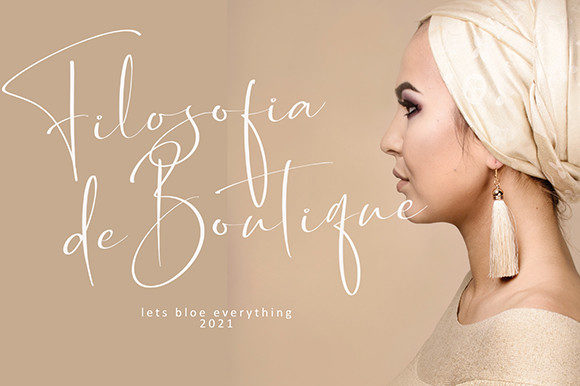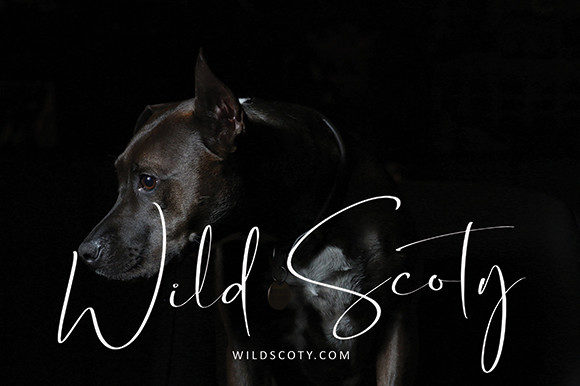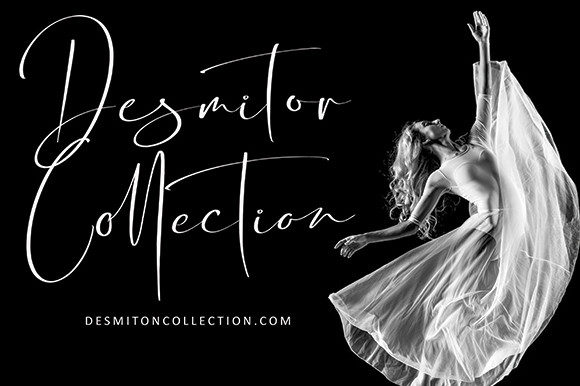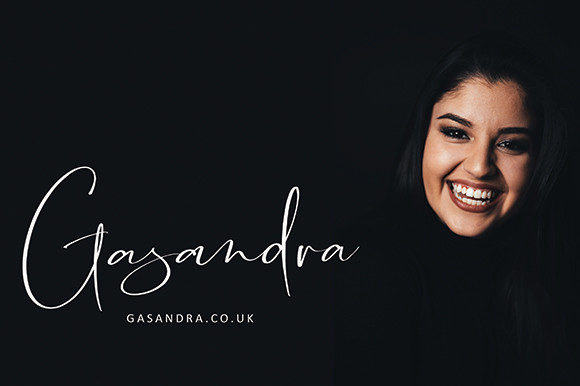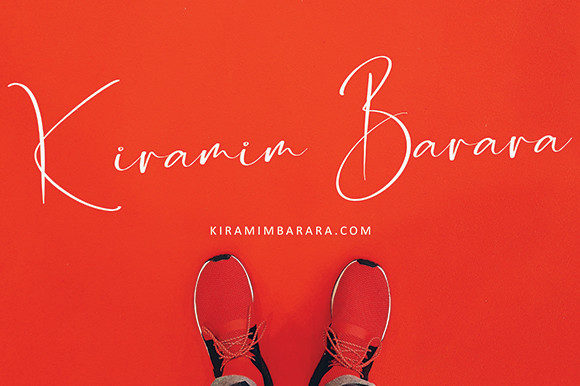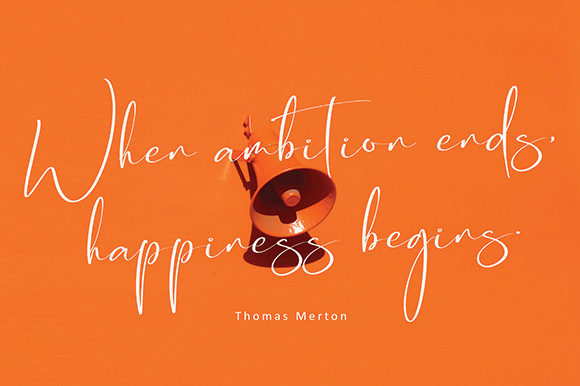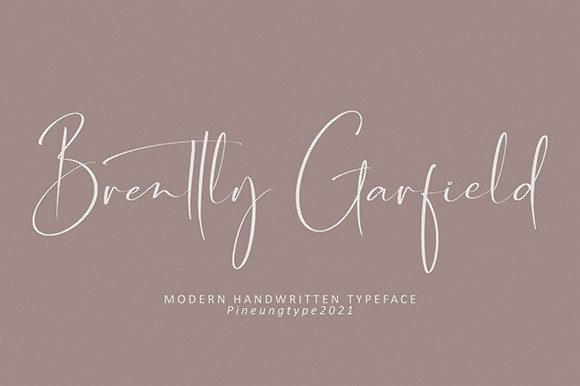
Discover the Elegance of Brently Garfield Font: Elevate Your Designs with Sophistication
Are you on the lookout for a font that exudes elegance, refinement, and a touch of modern sophistication? Look no further than the Brently Garfield Font. This beautiful script font is designed to add a classy touch to a wide range of design projects, from logos and branding to invitations, stationery, wedding designs, social media posts, and beyond. In this article, we’ll dive into the world of Brently Garfield Font, exploring its features, uses, and the creative possibilities it offers to designers and crafters alike.
The Essence of Brently Garfield Font
Brently Garfield Font is a meticulously crafted script font that boasts a classy, elegant, and modern aesthetic. Its refined appearance makes it an ideal choice for projects where making a sophisticated statement is key. Whether you’re working on a luxury brand’s logo, a wedding invitation, or a high-end product’s packaging, Brently Garfield Font is sure to elevate your design to new heights of elegance and professionalism.
One of the standout features of Brently Garfield Font is its incredible versatility. This font isn’t just limited to one or two specific design applications; rather, it can be used across a broad spectrum of projects, including:
- Logos and Branding: Create a lasting impression with a logo that speaks of luxury and refinement.
- Invitations and Stationery: Add an elegant touch to your wedding invitations, greeting cards, and personal stationery.
- Wedding Designs: From wedding invitations to ceremony decor, Brently Garfield Font can add a sophisticated flair to your designs.
- Social Media Posts: Elevate your social media content with stylish and engaging posts that stand out.
- Packaging and Advertising: Give your product packaging and advertising materials a high-end look that captures attention.
Why Choose Brently Garfield Font?
With so many fonts available, why should Brently Garfield Font be your go-to choice? Here are a few compelling reasons:
- Elegant and Modern: It offers a perfect blend of elegance and modernity, making your designs both timeless and contemporary.
- Highly Readable: Despite its script nature, Brently Garfield Font maintains high readability, ensuring your message is conveyed clearly and effectively.
- Easy to Use: This font is easy to integrate into your design projects, whether you’re working with graphic design software or digital platforms.
- Unique and Distinctive: Stand out from the crowd with a font that is both unique and distinctive, yet universally appealing.
Tips for Using Brently Garfield Font
To get the most out of Brently Garfield Font, consider the following tips:
- Pair with Complementary Fonts: For maximum impact, pair Brently Garfield Font with fonts that complement its elegance without overpowering it.
- Adjust Size and Color Wisely: Experiment with different sizes and colors to ensure the font enhances your design without overwhelming it.
- Consider the Context: Tailor your use of Brently Garfield Font to the specific context of your design project, ensuring it aligns with the overall aesthetic and message.
Brently Garfield Font is more than just a script font; it’s a design tool that can transform your projects with its elegant, refined, and modern appeal. Whether you’re a professional designer or a crafter working on personal projects, this font offers endless possibilities for creativity and expression. By incorporating Brently Garfield Font into your designs, you’re not just choosing a font; you’re elevating your work to a new level of sophistication and style. So why wait? Explore the creative potential of Brently Garfield Font today and discover how it can make your designs shine with elegance and refinement.